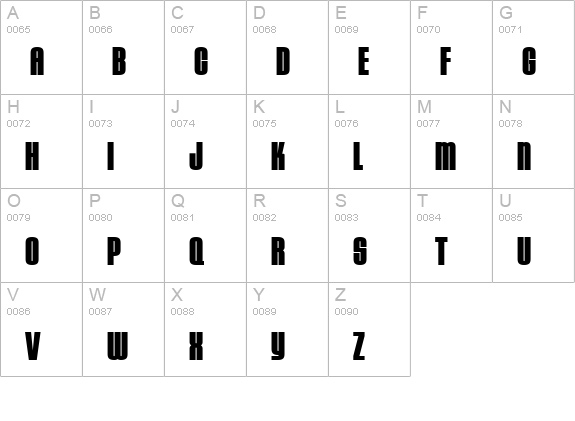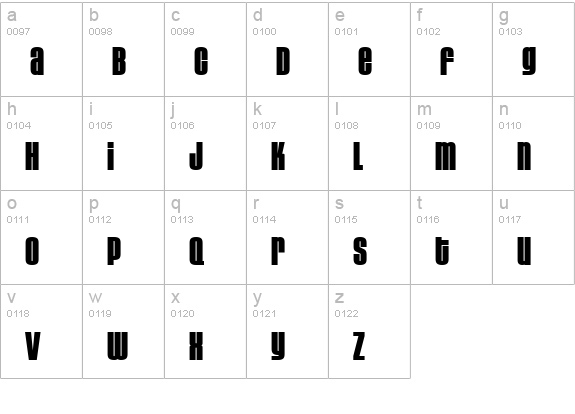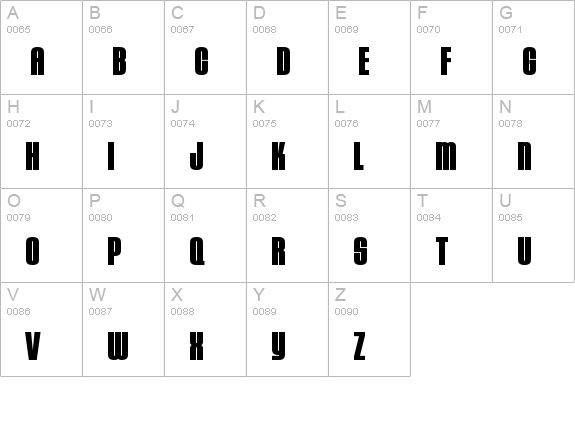
HouseGothic Black is a maximum-weight, dramatic variant in the HouseGothic typeface family \xE2\x80\x94 well suited to maximum-impact headlines, posters, and packaging.
HouseGothic Black is a striking and bold display font that exudes a sense of modernity and sophistication. Its sharp lines and geometric shapes make it perfect for creating impactful headlines and eye-catching designs. The font's sleek and elegant appearance sets it apart from other traditional Gothic fonts, giving it a unique edge. What makes HouseGothic Black even more appealing is that it is available for free download at FontsMarket.com. This means that designers and creatives alike can easily access this stylish font and incorporate it into their projects without any cost. Whether you're working on branding materials, web design, or print media, HouseGothic Black is sure to make a statement and elevate the overall look of your work. Download HouseGothic Black today from FontsMarket.com and unleash its bold and contemporary style in your designs.